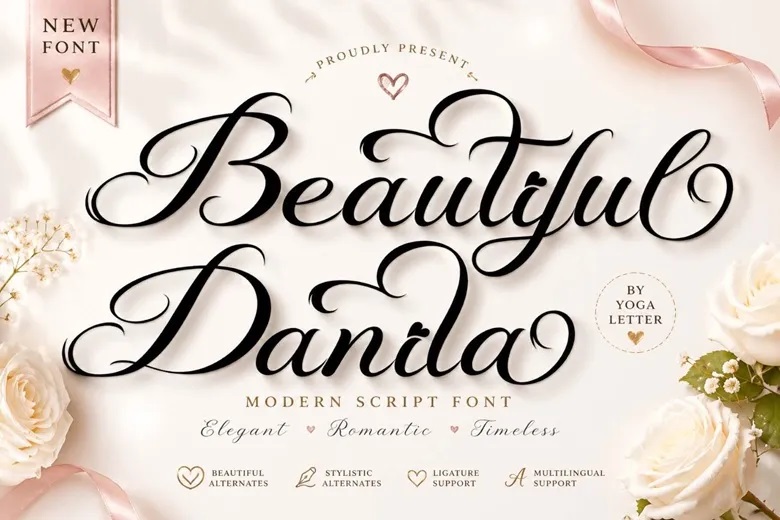
Beautiful Danila Font
Beautiful Danila is an elegant calligraphy script font available in regular and italic styles. It includes uppercase and lowercase letters, numbers, punctuation, alternates, swashes, and supports multiple languages.
This font works well for invitations, certificates, ads, photography, weddings, holidays, business logos, banners, posters, and more.
Beautiful Danila Calligraphy Script Font